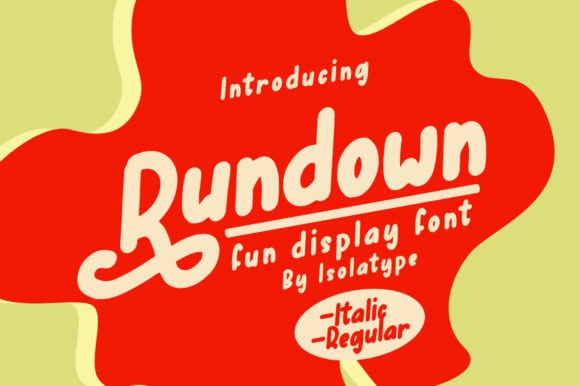
Rundown Font
Rundown Display Font is a cute display font. Its casual style makes it incredibly fitting to a wide range of designs, so add it confidently, and you will be amazed by the outcome. It’s fun and playful and would be perfect for your next DIY project, stickers, t-shirt design, branding, kid’s clothes, and so much more.